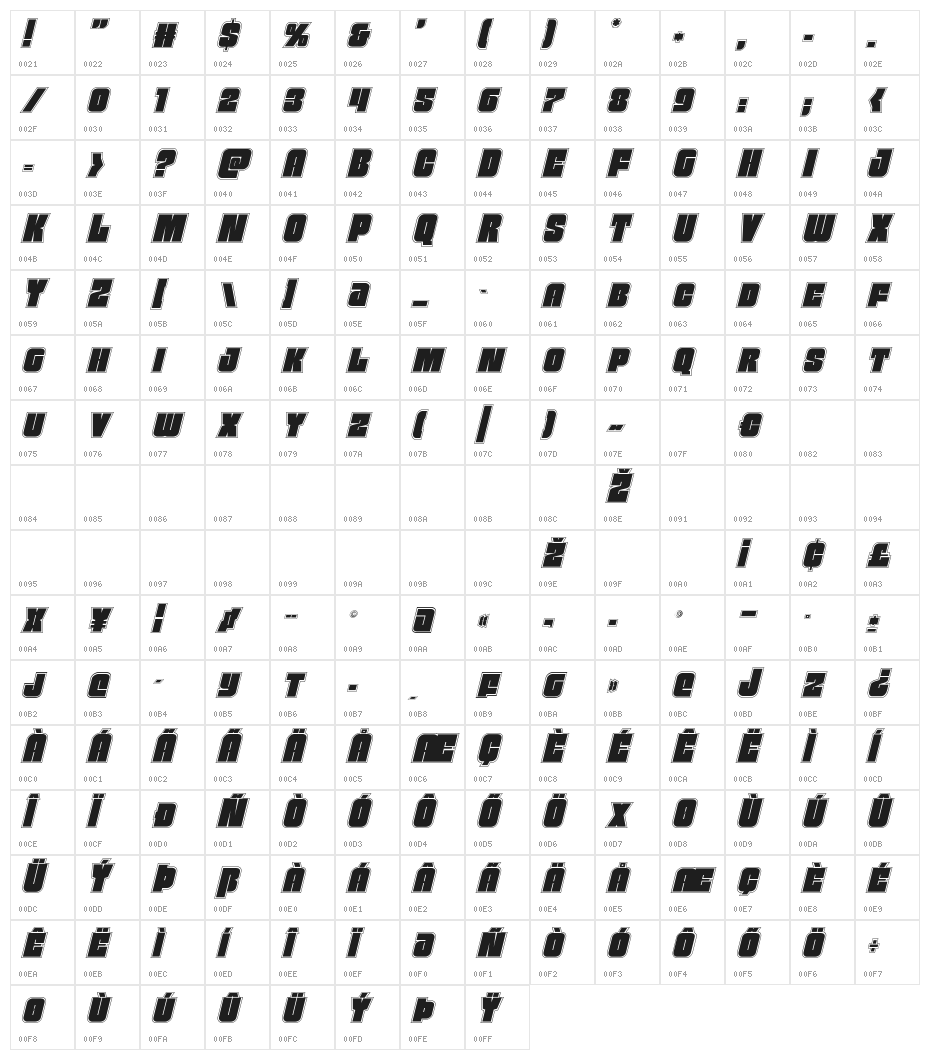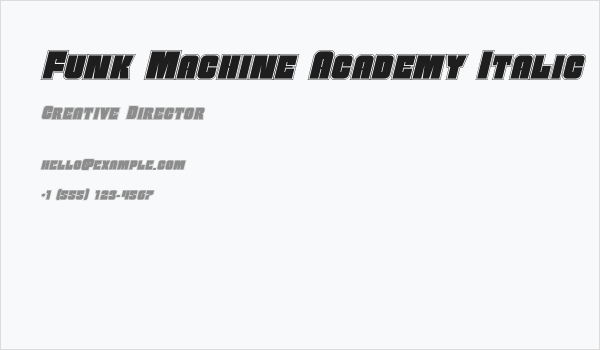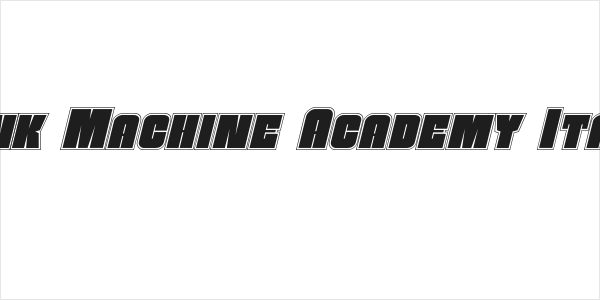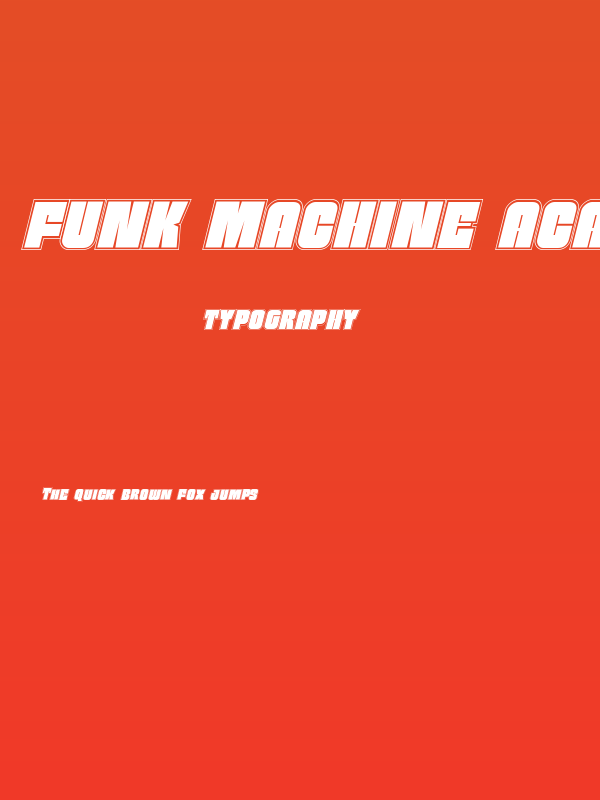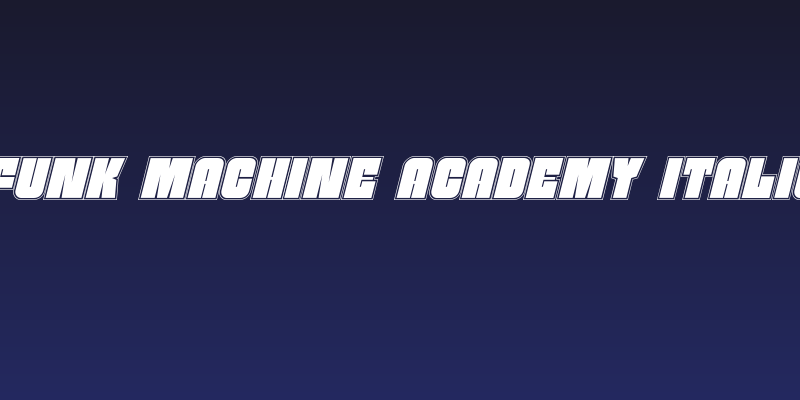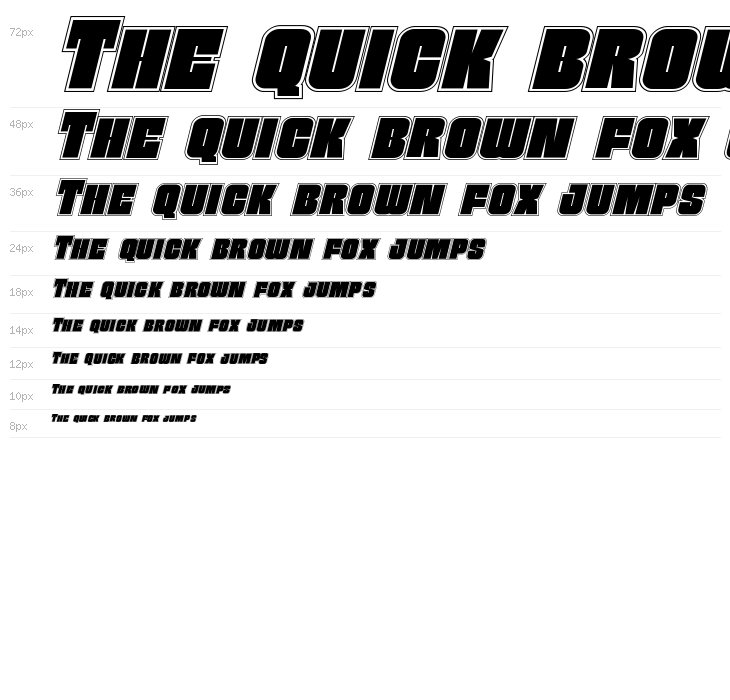
Funk Machine Academy Italic Font
Funk Machine Academy Italic Description
This font features a bold and dynamic style with a strong presence. The characters are italicized, giving them a forward-leaning, energetic appearance. Each letter is outlined, adding a layer of depth and making the text stand out prominently. The font is highly stylized, with a modern and edgy feel, suitable for attention-grabbing headlines or impactful designs. The numbers and special characters maintain the same bold and outlined characteristics, ensuring consistency across all elements. The overall design is cohesive, with a uniform weight and width that contributes to its striking visual appeal.
| Proposed Projects | Ideal for sports branding, music album covers, event posters, and dynamic advertising campaigns. |